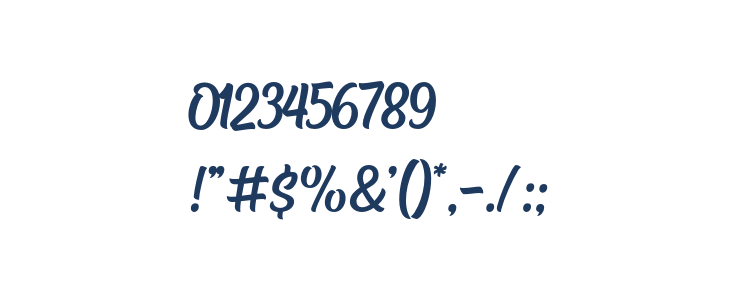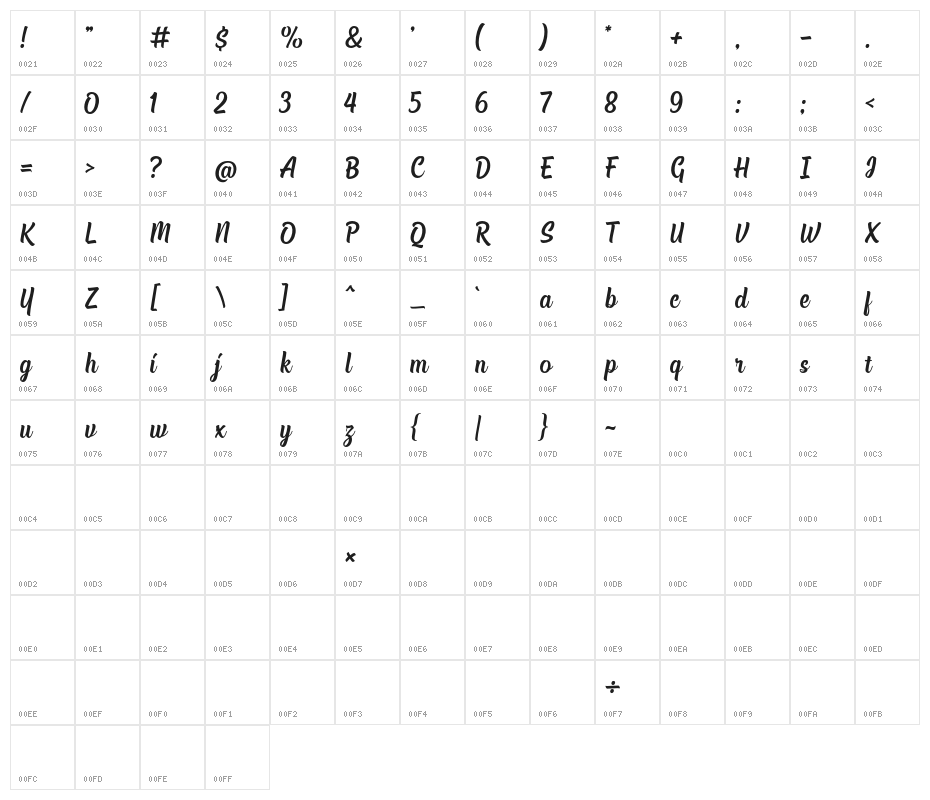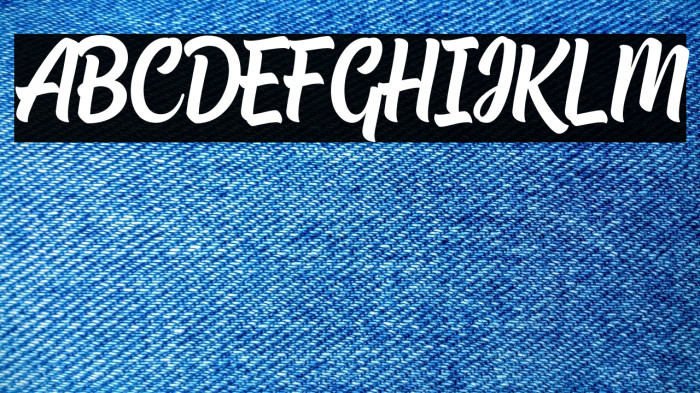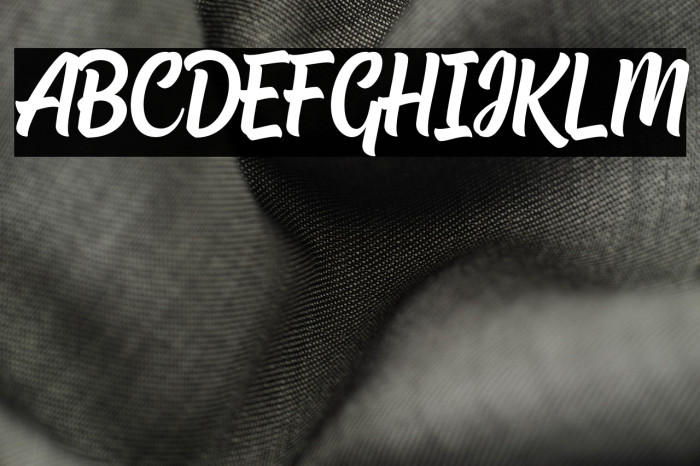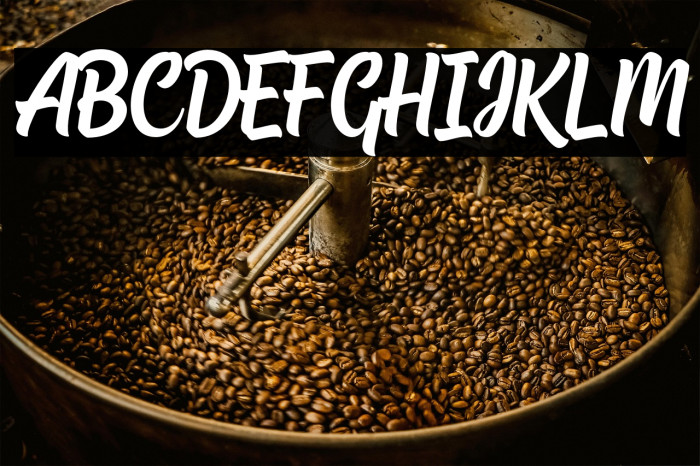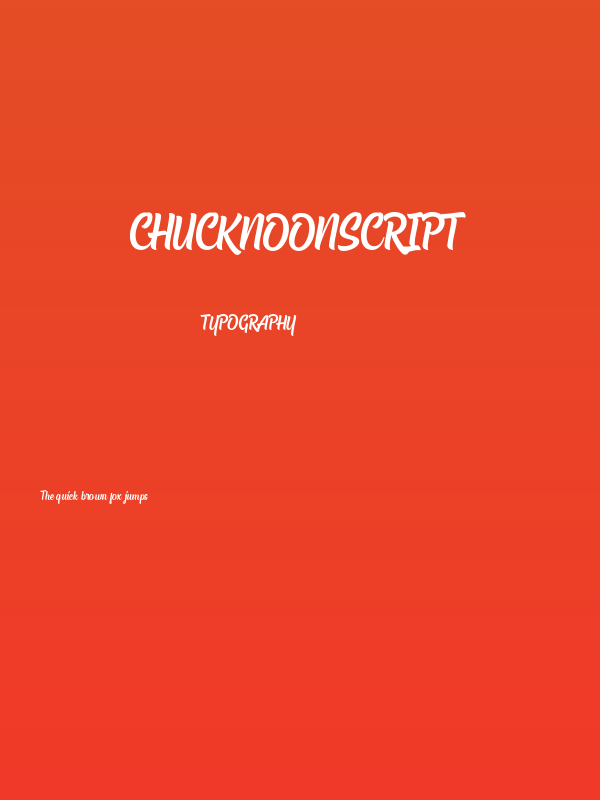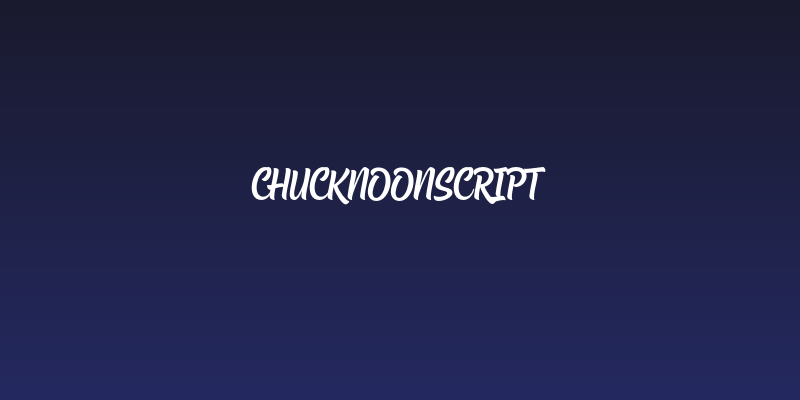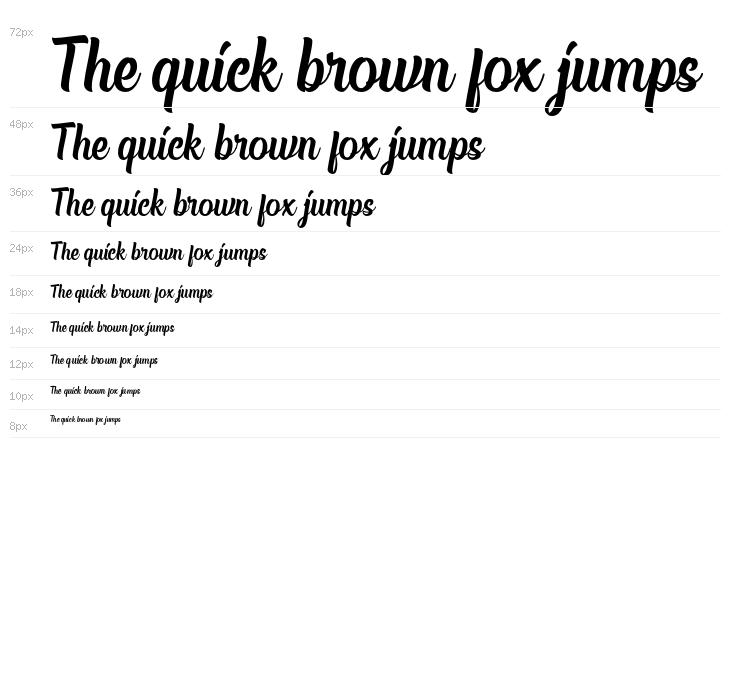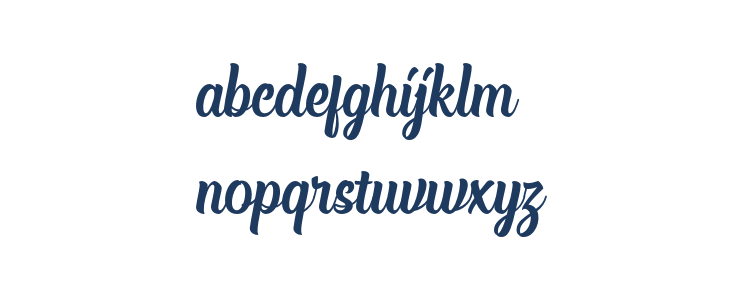
ChuckNoonScript Font
ChuckNoonScript Description
This font features a bold and dynamic script style, characterized by its fluid and connected letterforms. The uppercase letters are prominent and slightly slanted, giving a sense of movement and energy. The lowercase letters maintain a consistent flow, enhancing readability while retaining an artistic flair. Numbers and special characters are designed to match the overall aesthetic, with smooth curves and a cohesive look. The font's playful yet elegant appearance makes it suitable for various creative applications.
| Use Case | Logos, Invitations, Posters |
| Proposed Projects | Ideal for branding, invitations, posters, and creative projects requiring a lively and elegant script. |